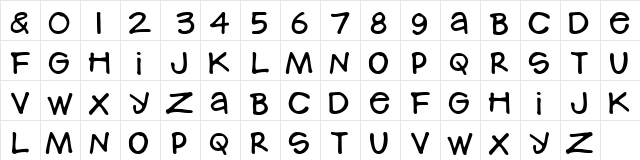
NancyNay Wide
Style: Wide
Design Context for NancyNay
NancyNay is a composed and adaptable typeface that performs quietly and consistently across a wide range of design contexts.